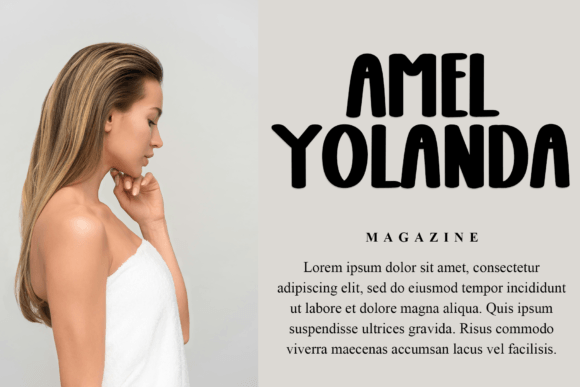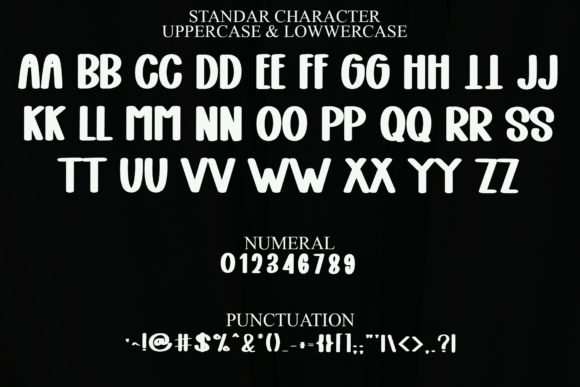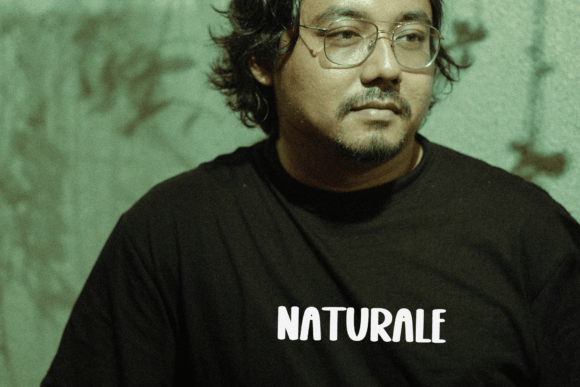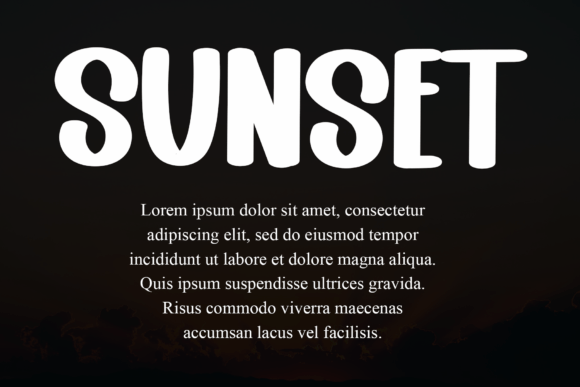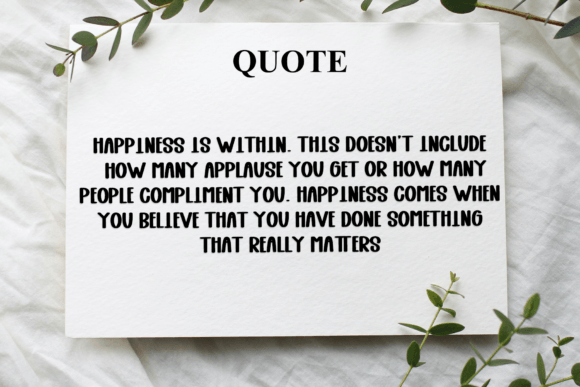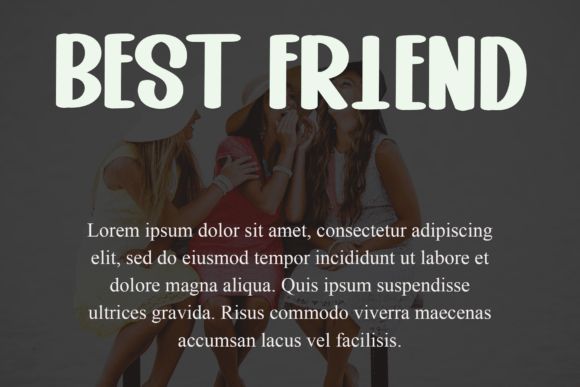
Deck the Halls with Humble Elegance
As the holiday season approaches, designers often find themselves searching for the perfect font to capture the magic of the time. You’ve probably experienced it: staring at your computer screen, scrolling through font collections, and finally stumbling upon that one special typeface that makes your project come alive. For many, this moment is the spark that ignites their creativity and sets the tone for their holiday designs.
Meet the Humble Font, a festive and happy typeface designed to spread joy and cheer. This charming font is perfect for greeting cards, gift labels, and any holiday-themed project that requires a touch of whimsy. With its decorative elements and unique flair, the Humble Font adds a layer of depth and character to your designs, making it a valuable asset for any designer looking to create memorable holiday content.
Thanks to its PUA coding, accessing the font’s amazing glyphs and ligatures is a breeze, allowing you to unlock its full potential and create truly unforgettable designs.
Humble Font Key Features
- Font Family: Humble Font is a sans-serif font family designed to be clean, simple, and highly legible. It is available in multiple weights, from Light to Bold.
- Character Set: Humble Font supports a wide range of languages, including Latin, Cyrillic, and Greek scripts, making it a versatile choice for global applications.
- Unique Characteristics: Humble Font features a unique, rounded sans-serif design that is highly legible and easy to read, even at small font sizes. Its clean and simple design makes it a popular choice for digital applications, such as websites, mobile apps, and e-books.
Humble Font Review
Overall, I’m quite impressed with the Humble Font. It’s a beautifully crafted typeface that works well in various contexts. Here are some of its strengths: ✨
- Legibility: The Humble Font is incredibly easy to read, making it perfect for body text and long passages.
- Neutral tone: The font’s neutral tone allows it to blend seamlessly into any design, making it a great choice for a wide range of projects.
- Playfulness: The Humble Font also has a playful side, with subtle nuances that add character to headings and titles.
- Not ideal for headlines: While the Humble Font is great for body text, it may not be the best choice for headlines and titles, as it can get lost in the noise.
- Lack of bold weights: The font’s bold weights could be more pronounced, making it harder to create striking headings and titles.
Overall, the Humble Font is a solid choice for designers looking for a clean, neutral typeface. While it may have some limitations, its strengths make it a great addition to any design project.
Getting the Most Out of Humble Font
Here are some tips to get the most out of Humble Font:
- Pair Humble Font with other fonts to create a unique and eye-catching design.
- Use Humble Font for headings and titles to create a clear visual hierarchy.
Humble Font is perfect for:
- Print and digital marketing materials.
- Web design and development.
Alternatives to Humble Font for Designers
Lato is a modern sans-serif font that is highly legible and versatile. It is perfect for use in headings and body text, making it ideal for digital and print media. Compared to Humble Font, Lato is more geometric and has a more subtle feel, making it suitable for a wider range of designs.
Open Sans is a clean and modern sans-serif font that is highly legible and easy to read. It is ideal for use in digital media, such as websites and mobile apps, and is also suitable for use in print media. Compared to Humble Font, Open Sans is more minimalist and has a more neutral feel, making it a great choice for designs that require a clean and simple aesthetic.